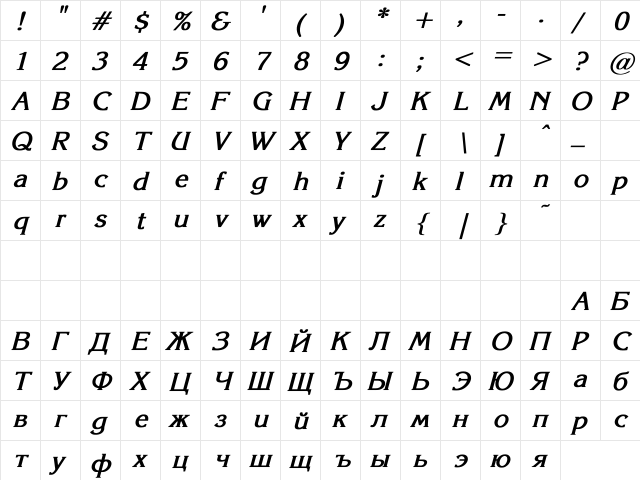
Korinna_SU Bold Italic
Design Context for Korinna_SU Typeface
Korinna_SU takes a measured approach to typography — its balanced proportions and neutral character make it a reliable workhorse for both digital and print work. The dynamic lean of this cut emphasises speed and emphasis in any layout. The heavy weight commands attention and anchors typographic hierarchies.
Pro Tip: Use Korinna_SU for emphasis, pull quotes, and subheadings where its slanted energy can add rhythm to the layout.